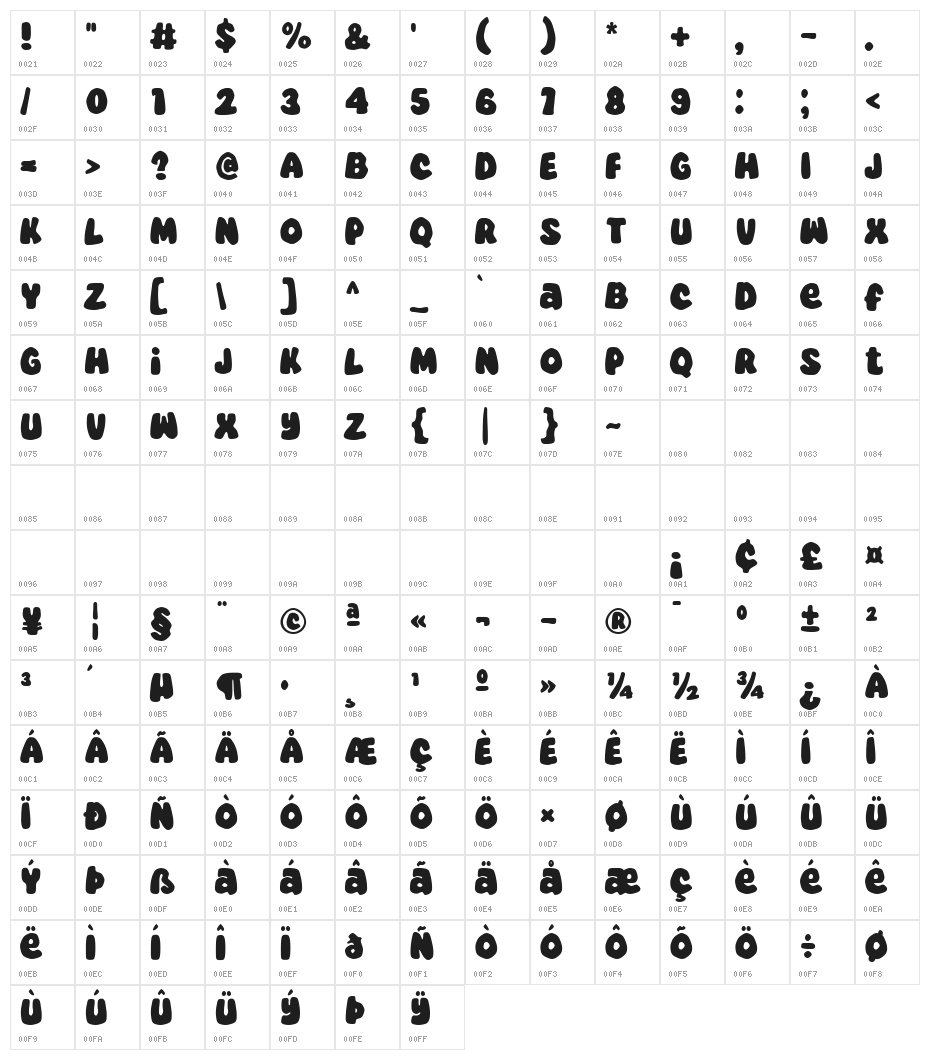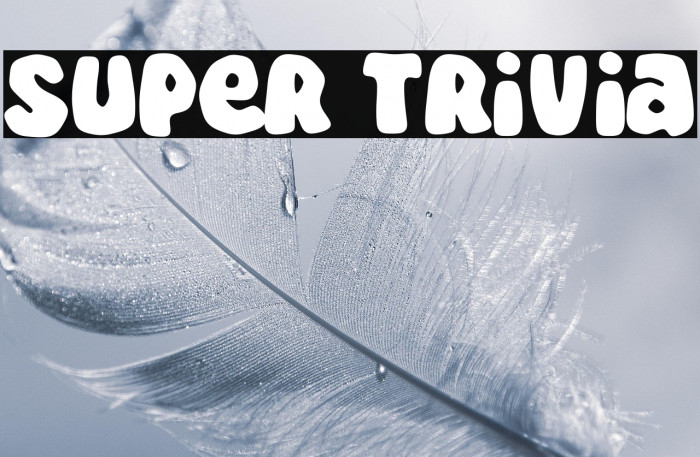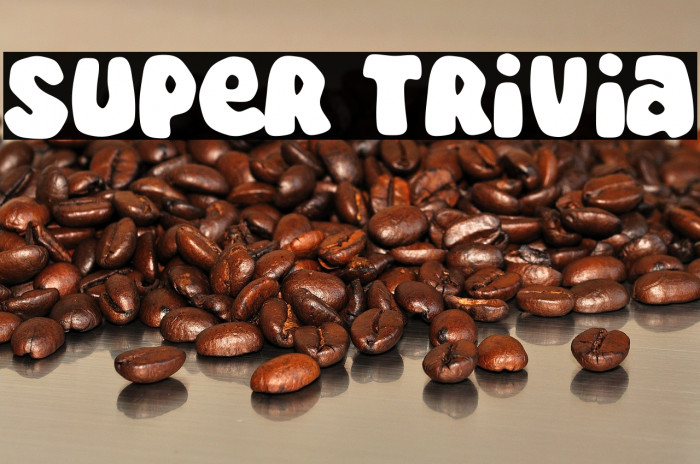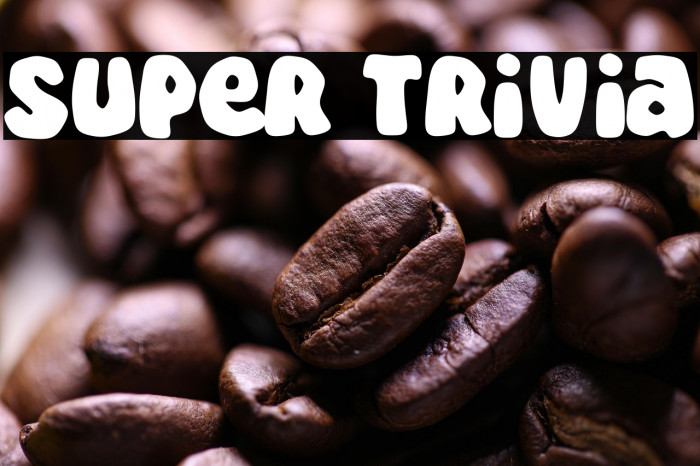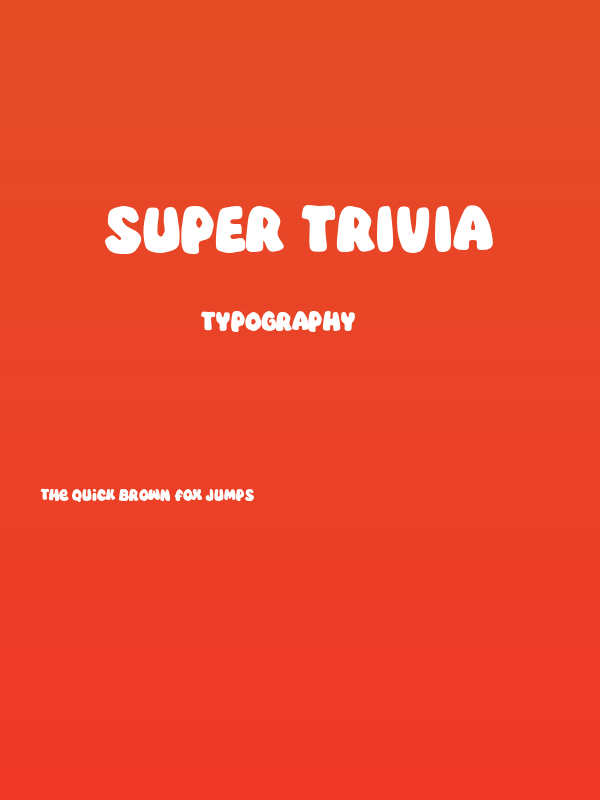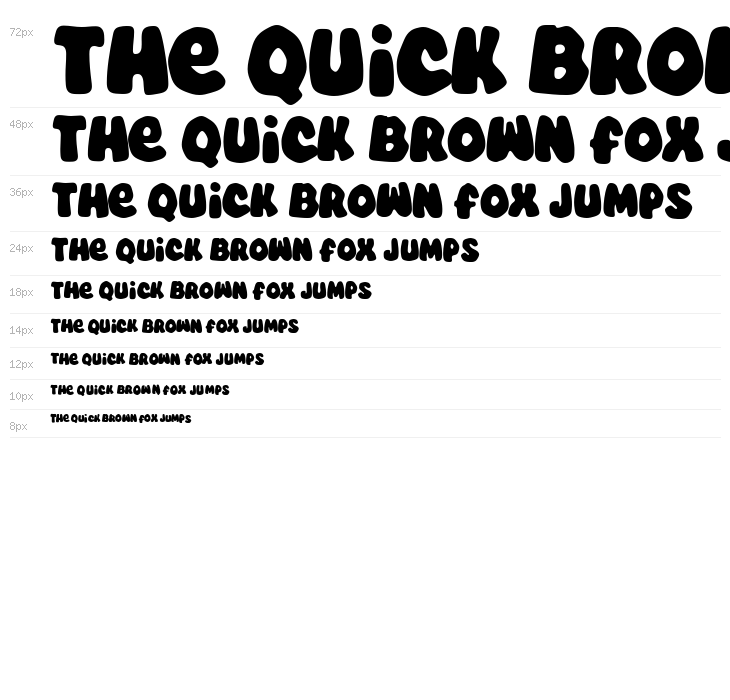
Super Trivia Font
Super Trivia Description
This font features a bold and playful design with rounded, bubbly characters that exude a sense of fun and whimsy. The letters are thick and substantial, giving them a strong presence on the page. The overall style is reminiscent of retro or comic book aesthetics, making it ideal for projects that require a touch of nostalgia or humor. The characters are evenly spaced, ensuring readability while maintaining a casual and informal vibe. The numbers and special characters follow the same playful design, making them consistent with the alphabetic characters.
| Overall Style | Playful, Retro, Comic |
| Proposed Projects | Ideal for children's books, comic strips, playful branding, party invitations, and retro-themed designs. |